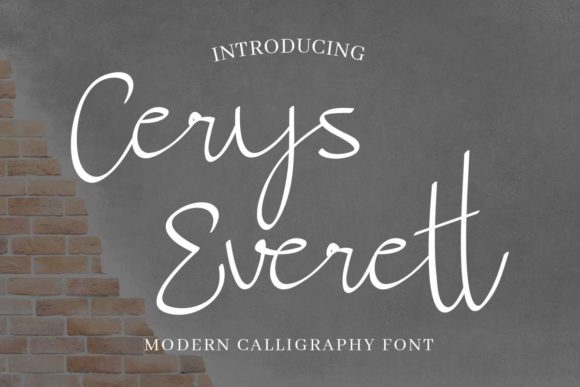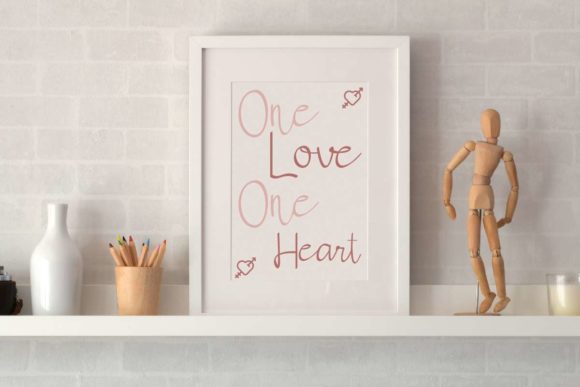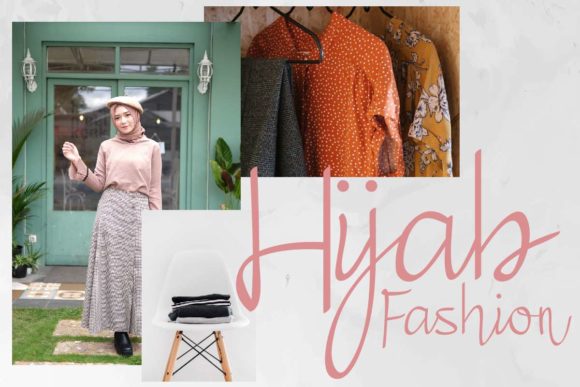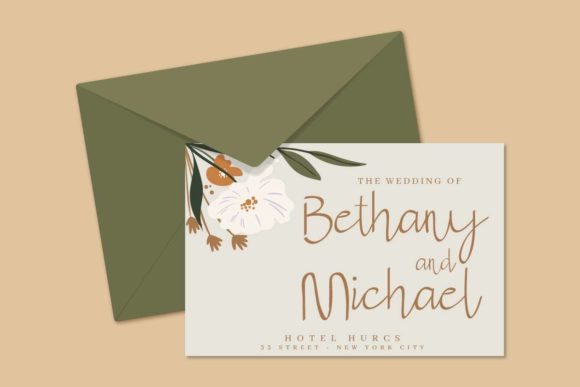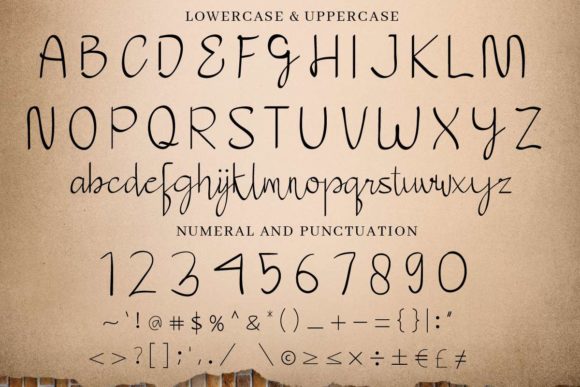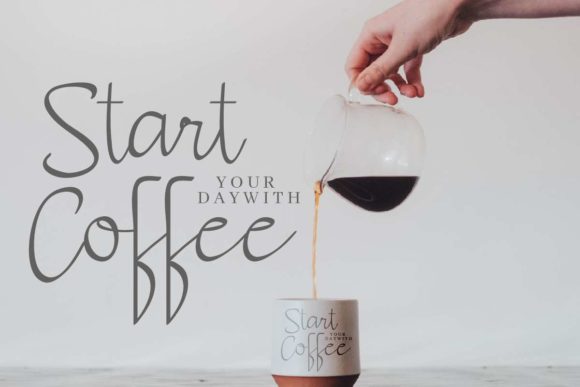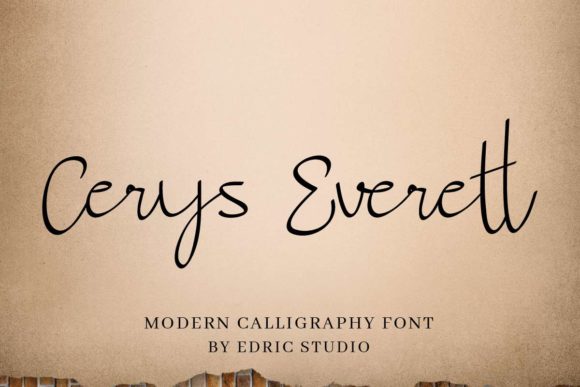
Cerys Everett Font: Elevate Your Design with Elegance and Versatility
In the world of typography, few fonts manage to strike a balance between classic elegance and modern flair. Cerys Everett Font is one such exceptional typeface that embodies sophistication while feeling fresh and contemporary. Designed by Cerys Everett, this outstanding handwritten font simplifies elegance into a versatile tool that can elevate a wide range of creative projects.
The Essence of Cerys Everett Font
Cerys Everett Font is characterized by its classy calligraphic influences, which are evident in its fluid strokes and graceful letterforms. However, what sets it apart is its ability to feel modern and relevant, making it perfect for designers and crafters looking for a font that can add a touch of sophistication to their work.
One of the standout features of Cerys Everett Font is its versatility. This font is not limited to a specific style or project; instead, it can be used across a variety of applications. Whether you’re designing letterheads, titles, or stationery, Cerys Everett Font can add a level of elegance and professionalism that elevates your work.
Perfect for Crafty Ideas
For crafters and designers who enjoy working on DIY projects, Cerys Everett Font is a treasure. Its unique blend of traditional calligraphy and modern simplicity makes it an excellent choice for a range of crafty ideas. Imagine using this font for:
- Handmade Cards: Add a personal touch to your greeting cards with Cerys Everett Font, making each one feel special and bespoke.
- Custom Stationery: Elevate your stationery with a font that exudes elegance and sophistication.
- DIY Invitations: Create beautiful, one-of-a-kind invitations for parties, weddings, or any special occasion.
- Artisan Product Labels: Give your handmade products a professional look with labels that feature Cerys Everett Font.
Why Choose Cerys Everett Font?
With so many fonts available, why choose Cerys Everett Font? Here are a few compelling reasons:
- Unique yet Legible: Cerys Everett Font offers a unique aesthetic without compromising on legibility, making it perfect for both display and body text.
Tips for Using Cerys Everett Font
To get the most out of Cerys Everett Font, consider the following tips:
- Pair with Simplicity: Let Cerys Everett Font be the star of your design by pairing it with simple backgrounds or textures that don’t compete for attention.
- Experiment with Colors: While the font itself is elegant, experimenting with different colors can help match your design to your brand or project’s theme.
- Play with Sizes: Don’t be afraid to vary the font size to create visual hierarchy and add depth to your designs.
Cerys Everett Font is more than just a typeface; it’s a tool that can transform your designs with its elegant and versatile charm. Whether you’re a professional designer or a crafter working on personal projects, this font offers a simple way to add a touch of sophistication and class. With its broad range of applications and ease of use, Cerys Everett Font is sure to become a favorite in your collection.